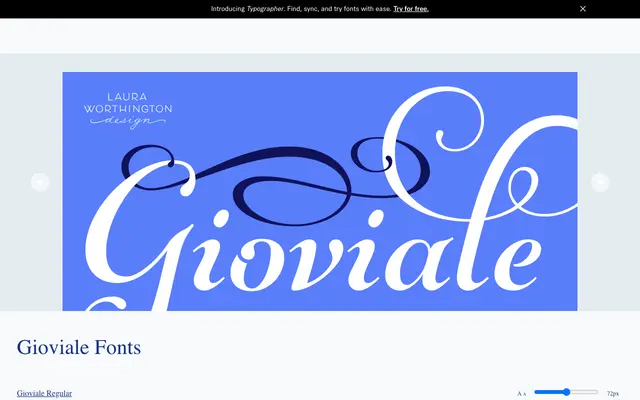
Gioviale
A hybrid italic-script with calligraphic flair, notable for its readability at small sizes and an unusually deep set of swash and alternate characters.
Combining the flow of a connected script with the structured discipline of an italic, Gioviale offers better legibility at small sizes than most scripts in its class. The family comes in two weights, Regular and Bold, and is furnished with 300 swashes, 20 ornaments, 20 discretionary ligatures, alternate swash capitals and 16 stylistic sets. Latin Extended language support covers over two dozen European languages.
Gioviale is explicitly described as a hybrid of italic and script, combining the fluidity of a connected script with the structured underpinnings of an italic, placing it firmly in the script category with an italic-script subcategory.